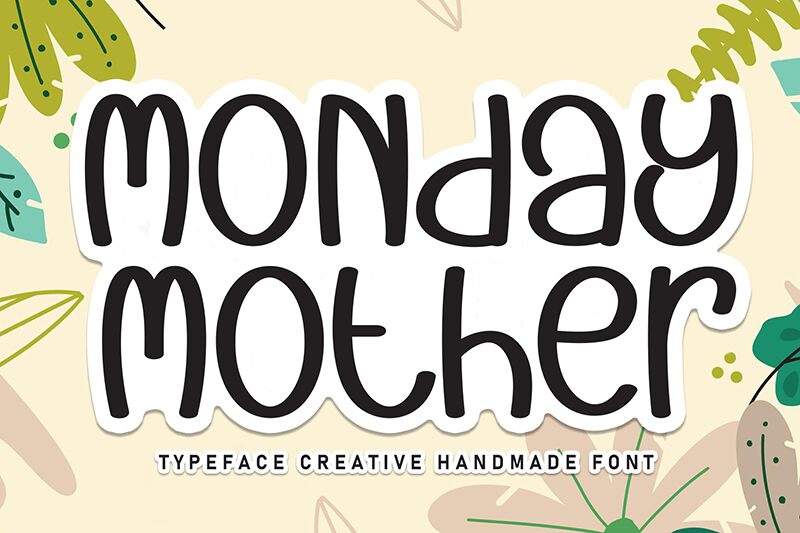
Monday Mother
Monday Mother font is a soft and modern typeface by Andi Moz. This free handwritten font conveys a casual and friendly feel with its rounded aesthetic. The harmonious strokes create an approachable design that gives Monday Mother its stylish appearance distinguished with simplicity.
Use this lovely free font in making social media posters, T-shirt designs, product packaging, labels, business cards, invitation cards, website banners and headers. Use it in logos for clinics or essential oils brands to work as part of a natural visual identity.
This is a sweet and friendly handwritten display font. Cute and fun, this font is ideal for writing wedding invitations, cards, or any other design that requires a playful touch!